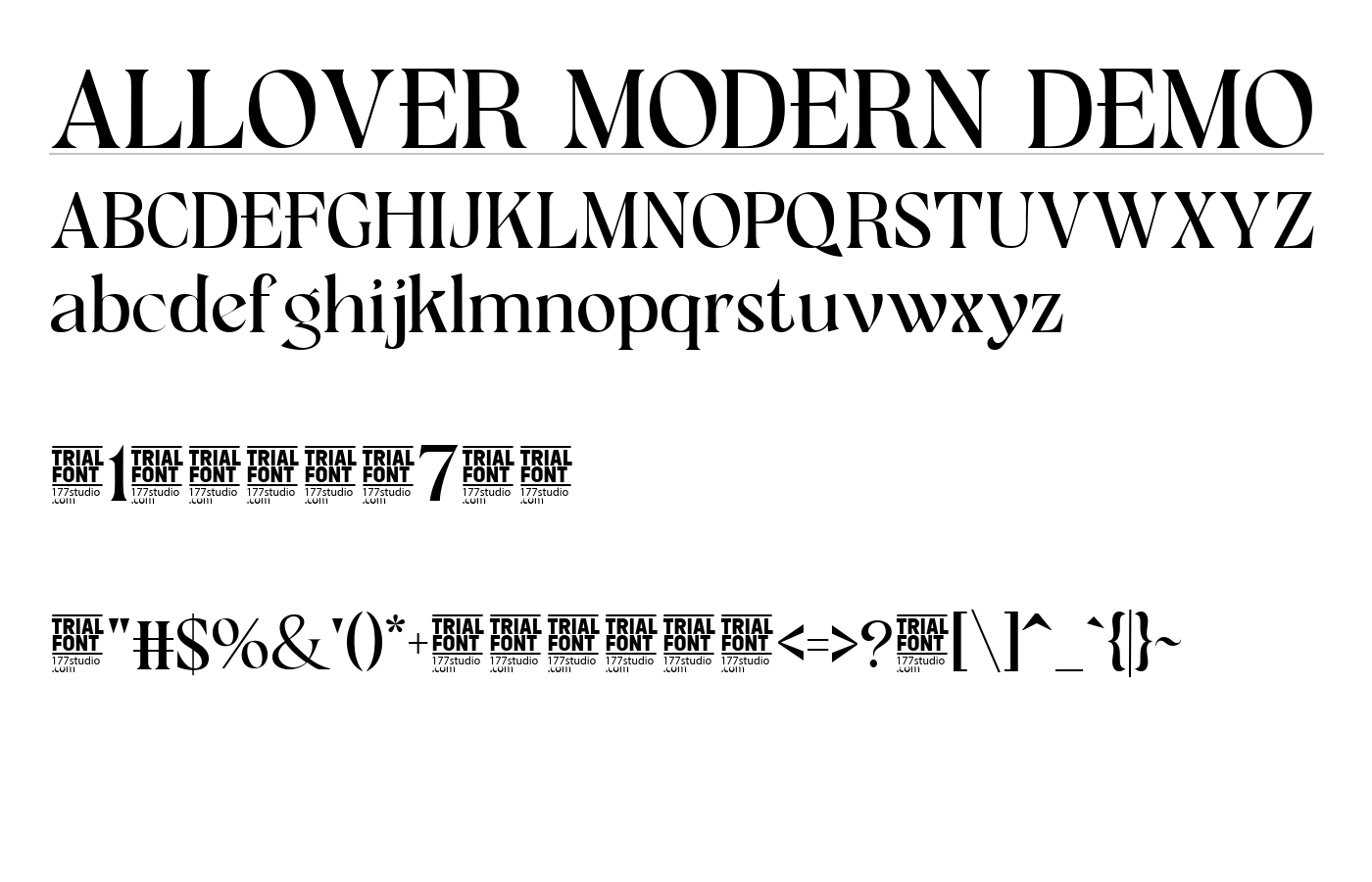
Allover Modern Demo is an elegant serif font with a high contrast between thick and thin strokes, featuring sharp, refined serifs and a tall x-height that gives it a sophisticated and timeless feel. Its classic letterforms and delicate details make it ideal for luxury branding, editorial design, and high-end packaging where a touch of modern refinement and formality is desired. This font works best for headlines and logos, adding an upscale and polished look to any project.
ALLOVER MODERN DEMO Font
About ALLOVER MODERN DEMO Font